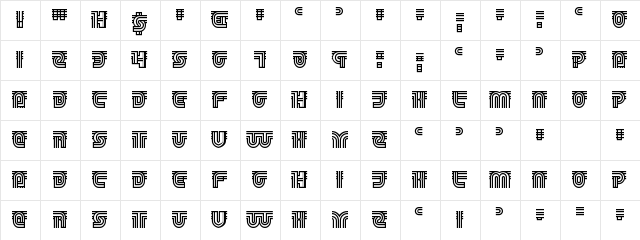
Track and Shield Regular
Design Context for Track and Shield Typeface
Track and Shield is a composed and adaptable typeface that performs quietly and consistently across a wide range of design contexts.